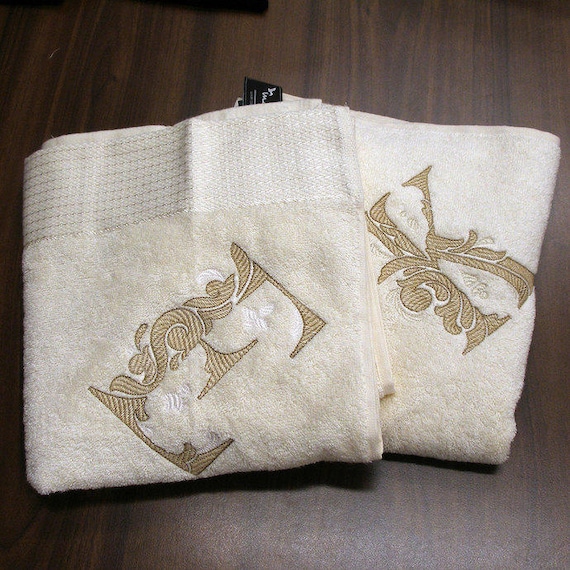
Alphabet Font wedding monogram embroidery machine designs letter heart instant digital download font marriage towel design hoop file
***Use the design for embroidery on t-shirts, towels, gift pictures, pillows, kurtovich blankets, aprons for bottles, aprons for the kitchen and to create other Souvenirs. This will be a wonderful gift!***